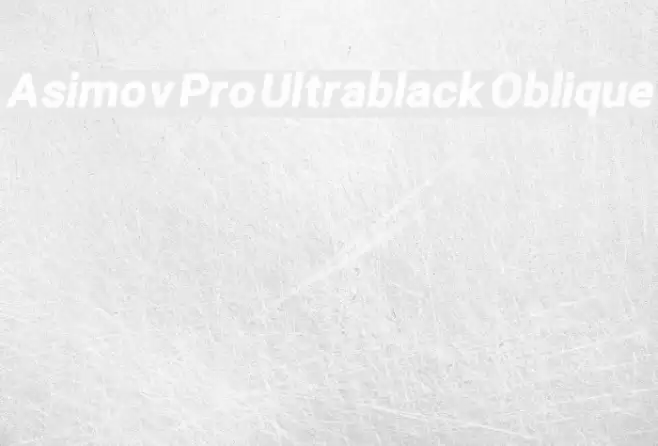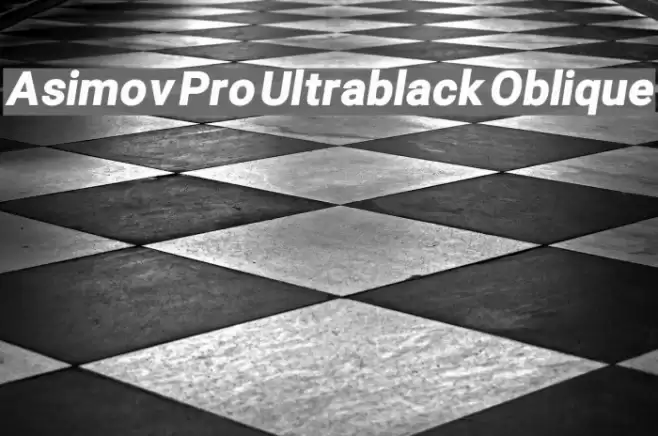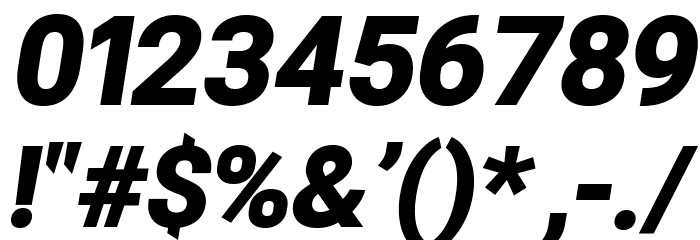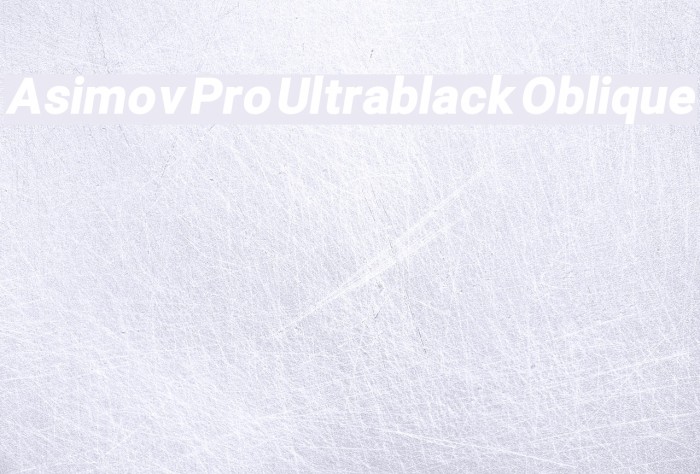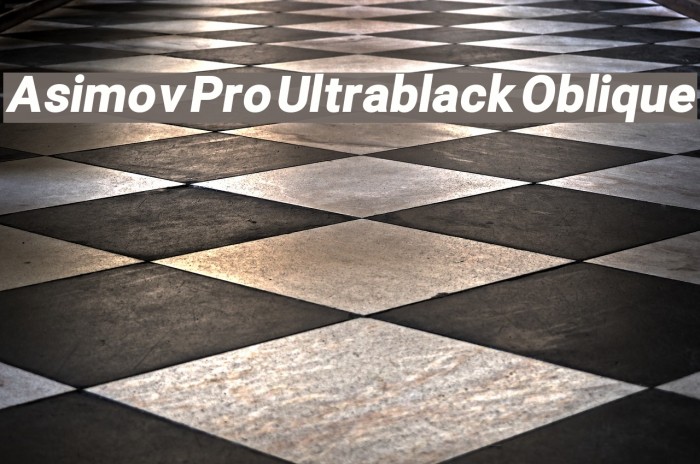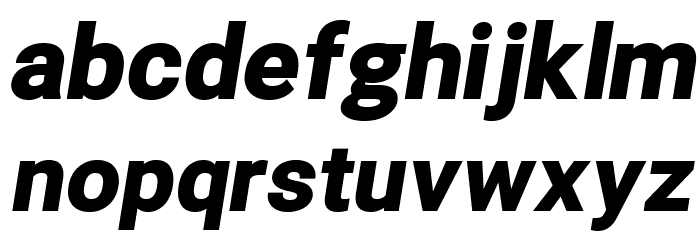
Asimov Pro Ultrablack Oblique
This font exhibits a bold and assertive style with a strong oblique slant, giving it a dynamic and modern appearance. The characters are thick and heavy, providing a sense of power and impact. The uppercase and lowercase letters maintain a consistent weight, ensuring uniformity across text. The numerals are equally bold, making them stand out prominently. Special characters are designed with the same robust style, ensuring they integrate seamlessly with the rest of the font. The overall design is clean and straightforward, with minimal decorative elements, focusing on clarity and readability.
A bold, oblique font with a modern and dynamic style.
- Proposed Projects: Ideal for headlines, posters, branding, and any project requiring a strong visual impact.